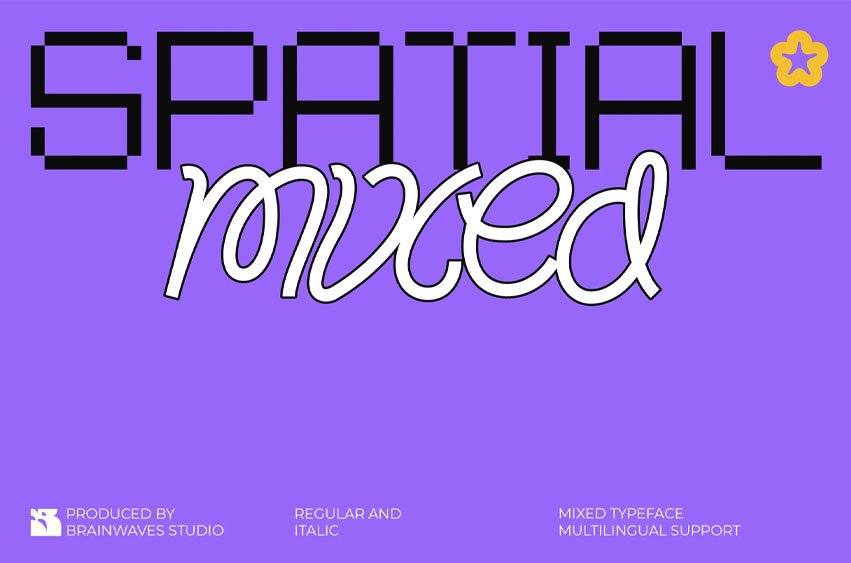
Spatial Mixed Font
Spatial Mixed Font is a revolutionary typeface designed for the era of classic Nintendo bitmap games and other retro pixel digital aesthetics. Combining the nostalgic charm of 8-bit retro style with the smooth and flexible curves of modern line script fonts, this unique display font bridges the gap between digital nostalgia and gentle curves.
Perfect for branding, posters, album covers, and more, Spatial Mixed invites you to explore limitless design possibilities.
Transform your projects with the bold blend of retro bitmap vibes and creative innovation that only Spatial Mixed can offer. Create uniquely—create with Spatial.